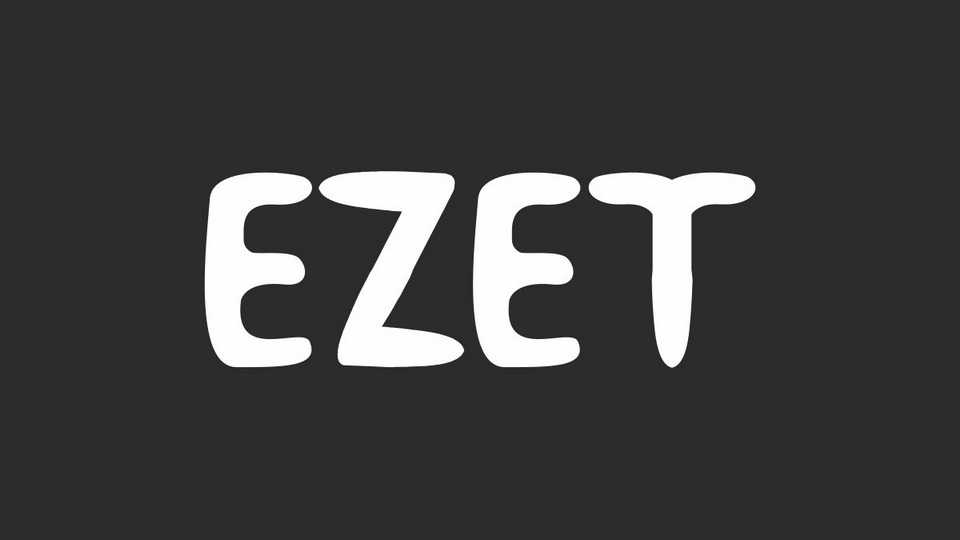
Download Ezet font, a simple and natural handwritten typeface that has unique un usual shape characters. Ezet will be great for games, school, kids related product, etc.